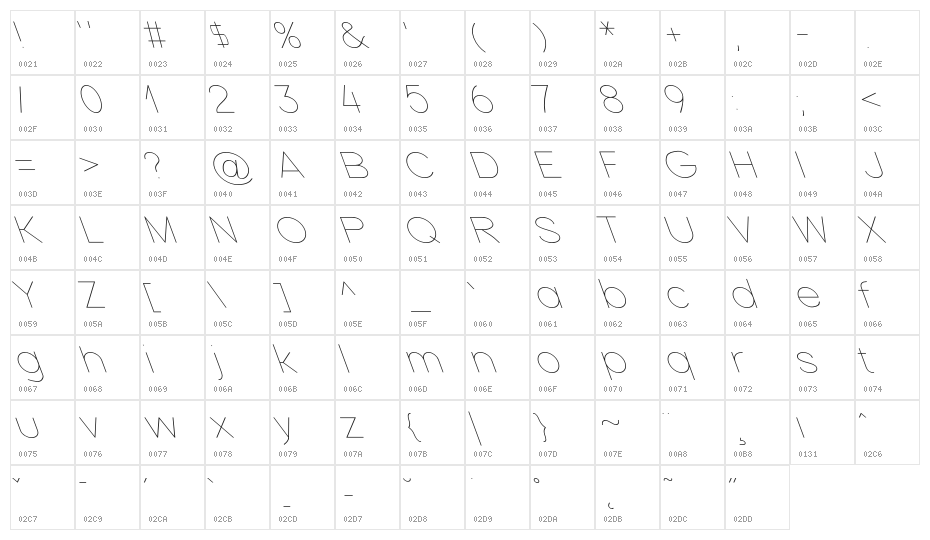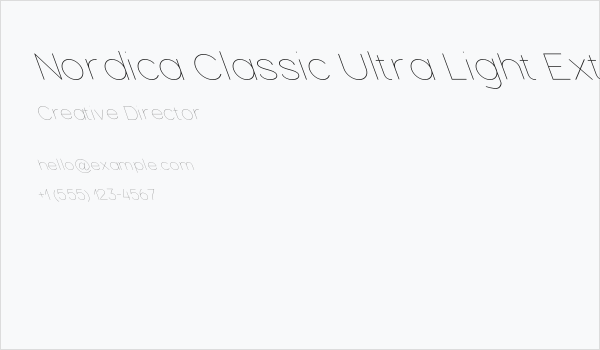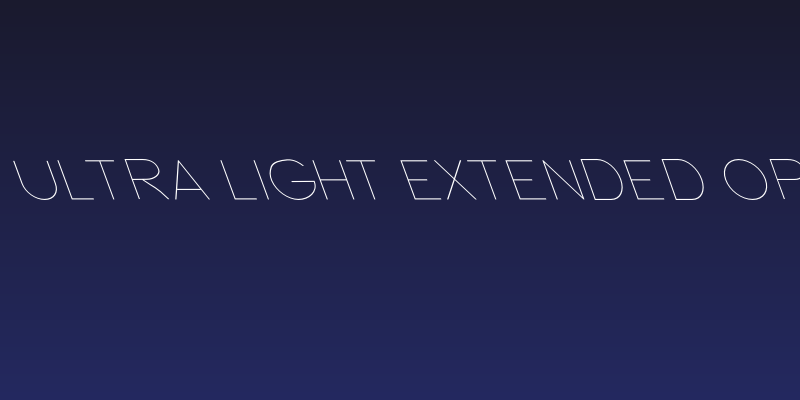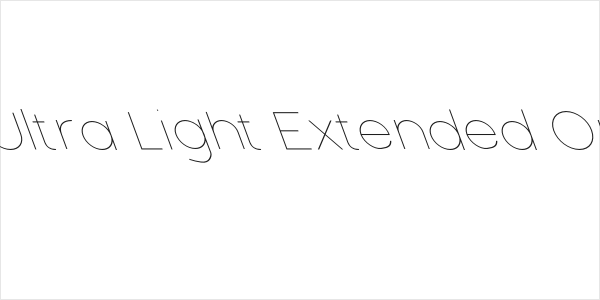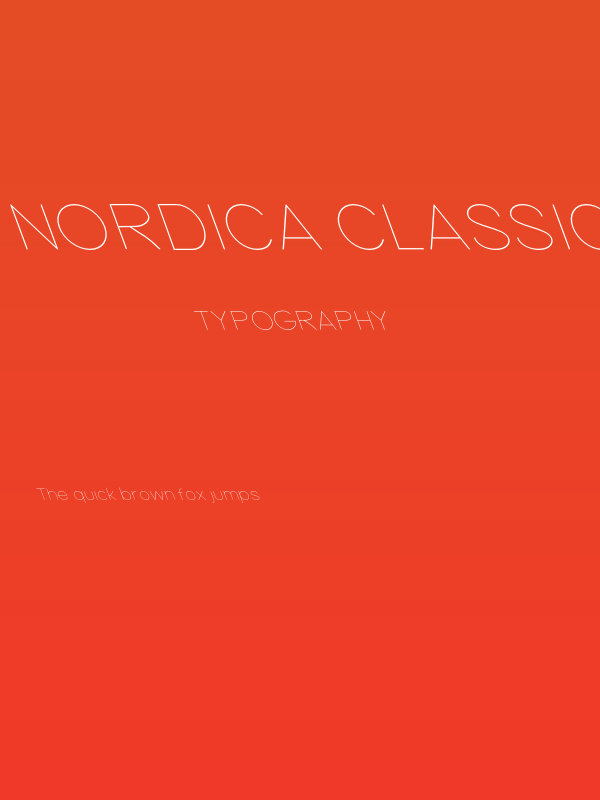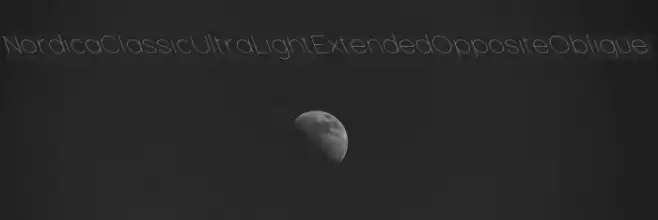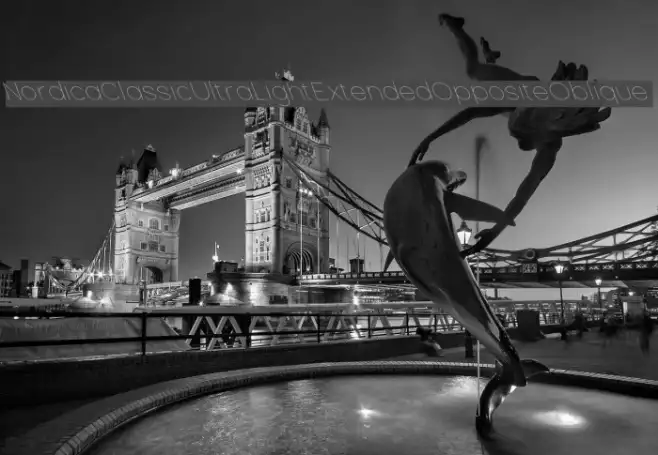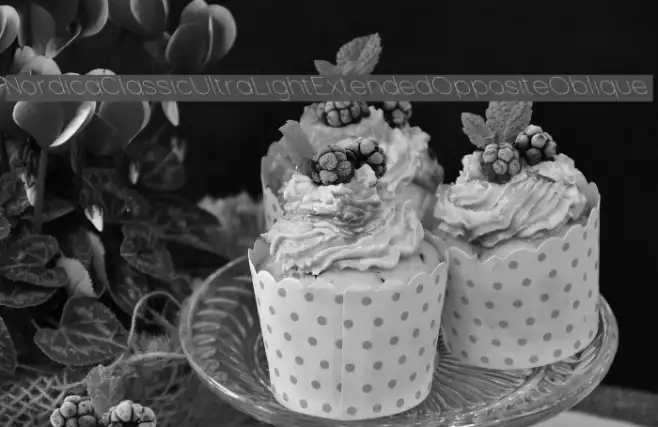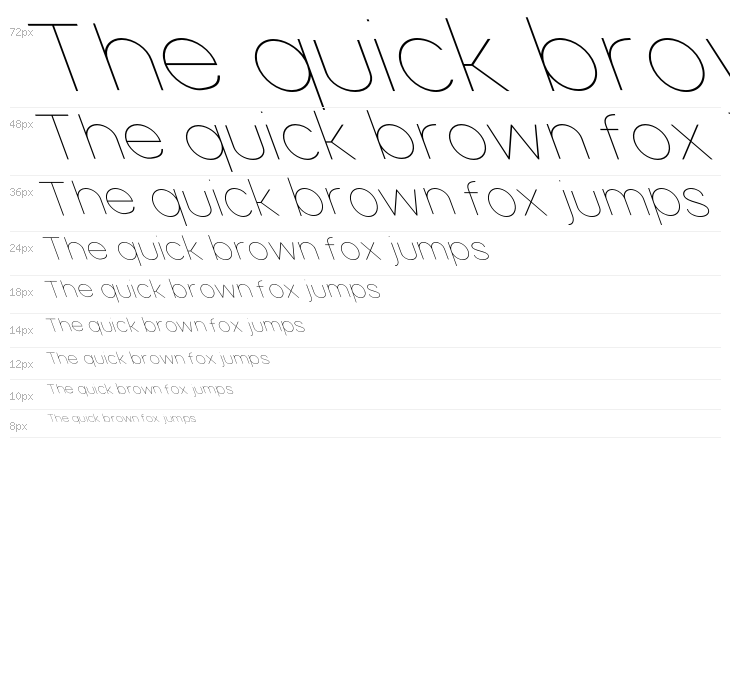
Nordica Classic Ultra Light Extended Opposite Oblique Font
Nordica Classic Ultra Light Extended Opposite Oblique Description
This font features an ultra-lightweight design with a modern and sleek aesthetic. The characters are elongated and slightly oblique, giving them a unique and sophisticated appearance. The extended width of the letters provides a spacious and airy feel, making it ideal for minimalist designs. The font maintains a consistent stroke width throughout, contributing to its clean and uncluttered look. The overall style is contemporary, with a touch of elegance that makes it suitable for high-end branding and editorial use.
| Proposed Projects | Ideal for luxury branding, minimalist editorial layouts, and modern web design. |